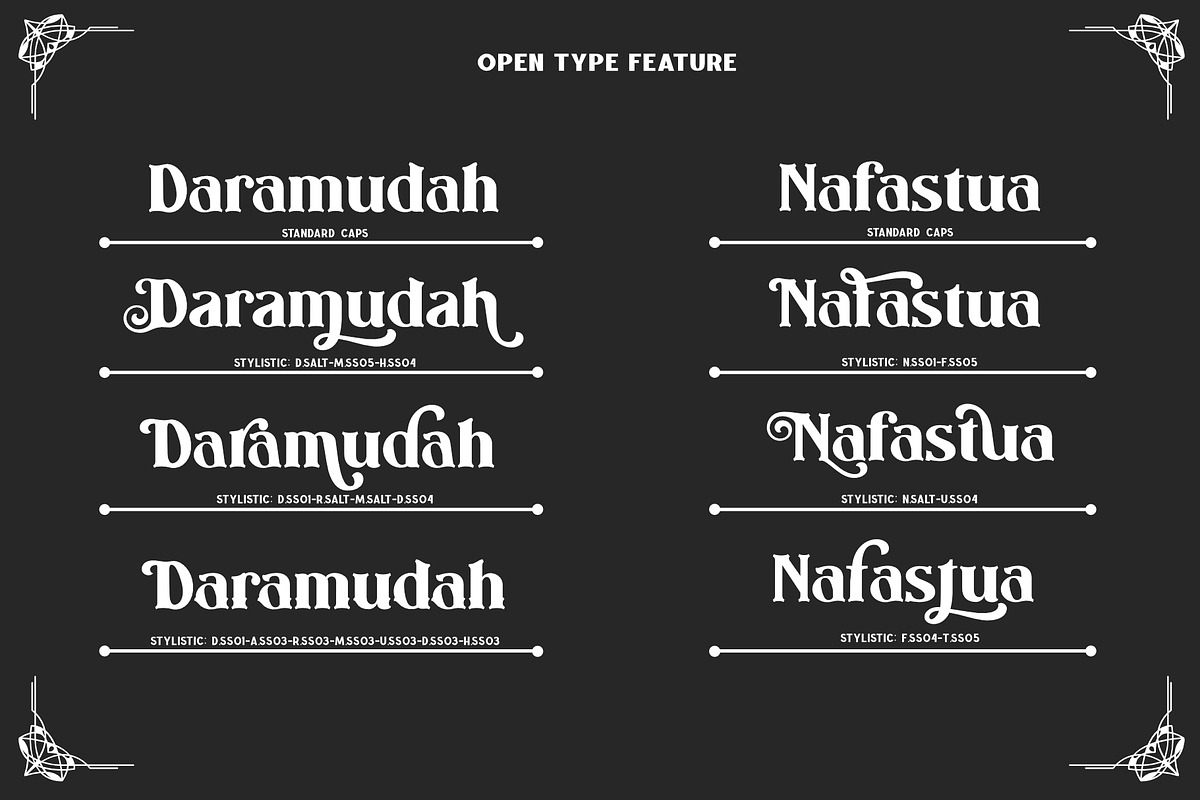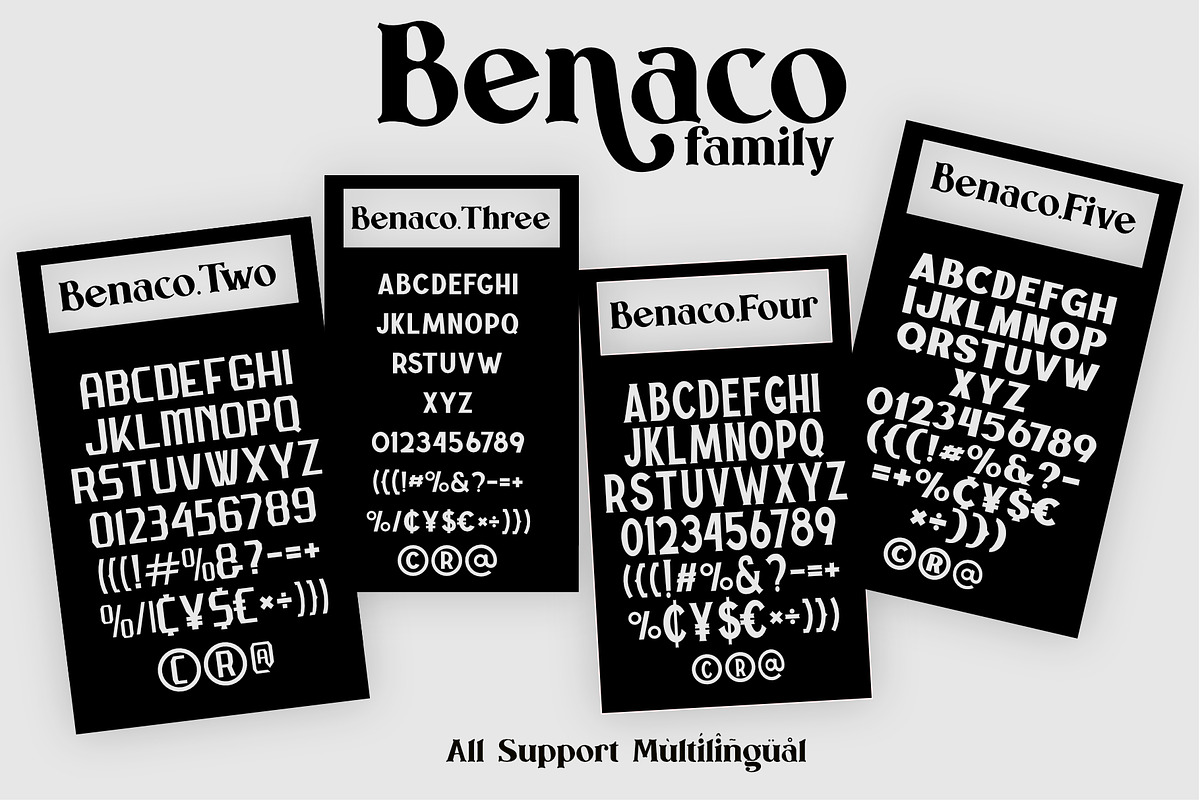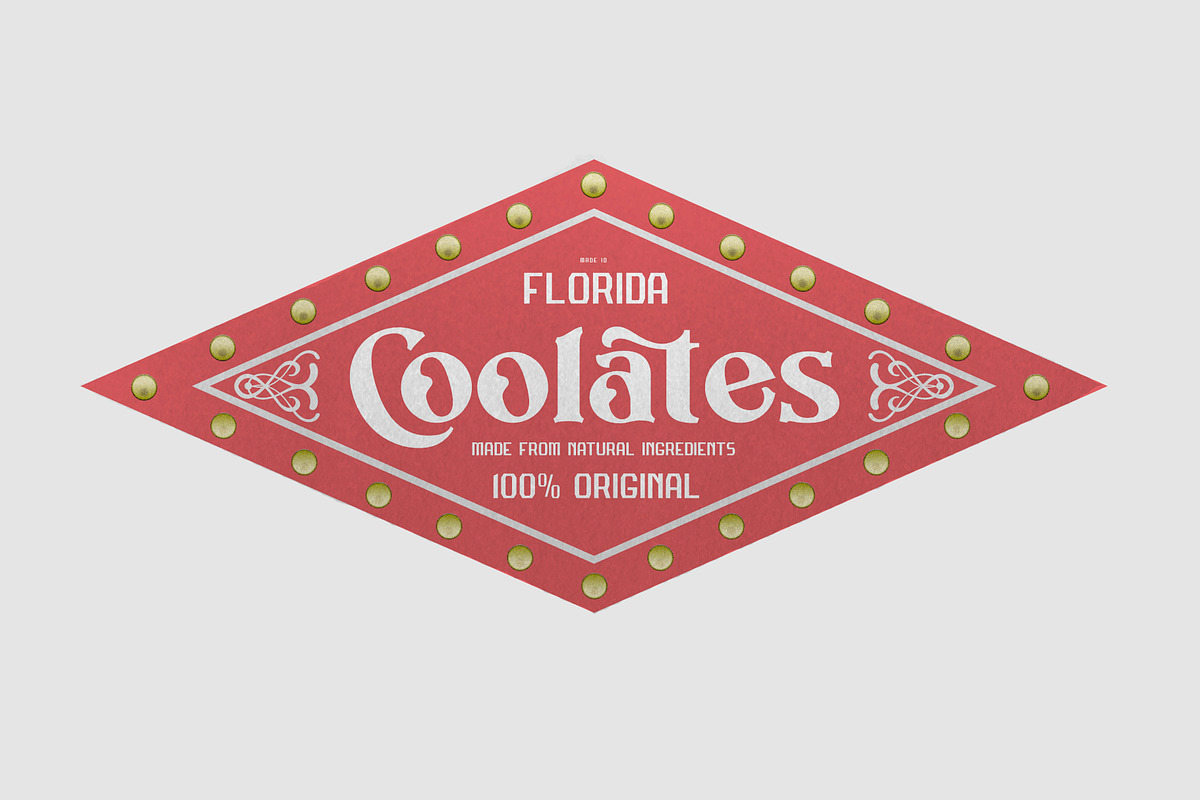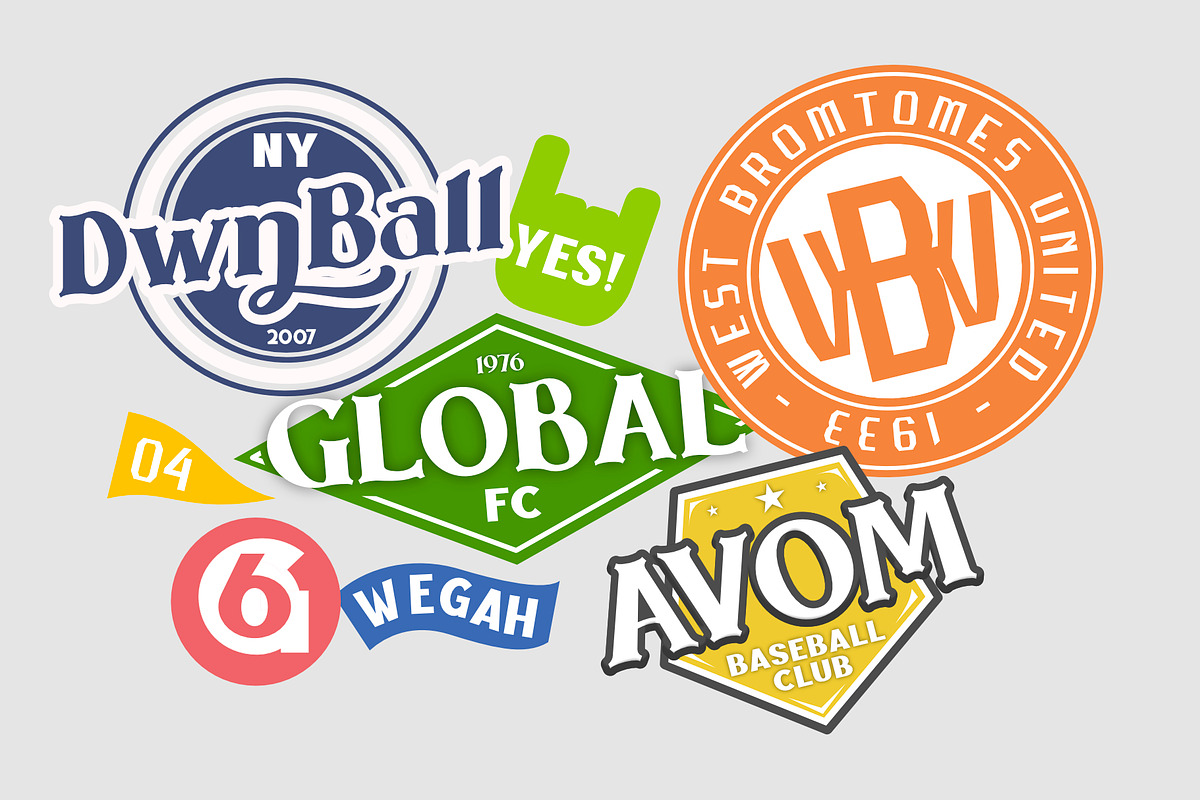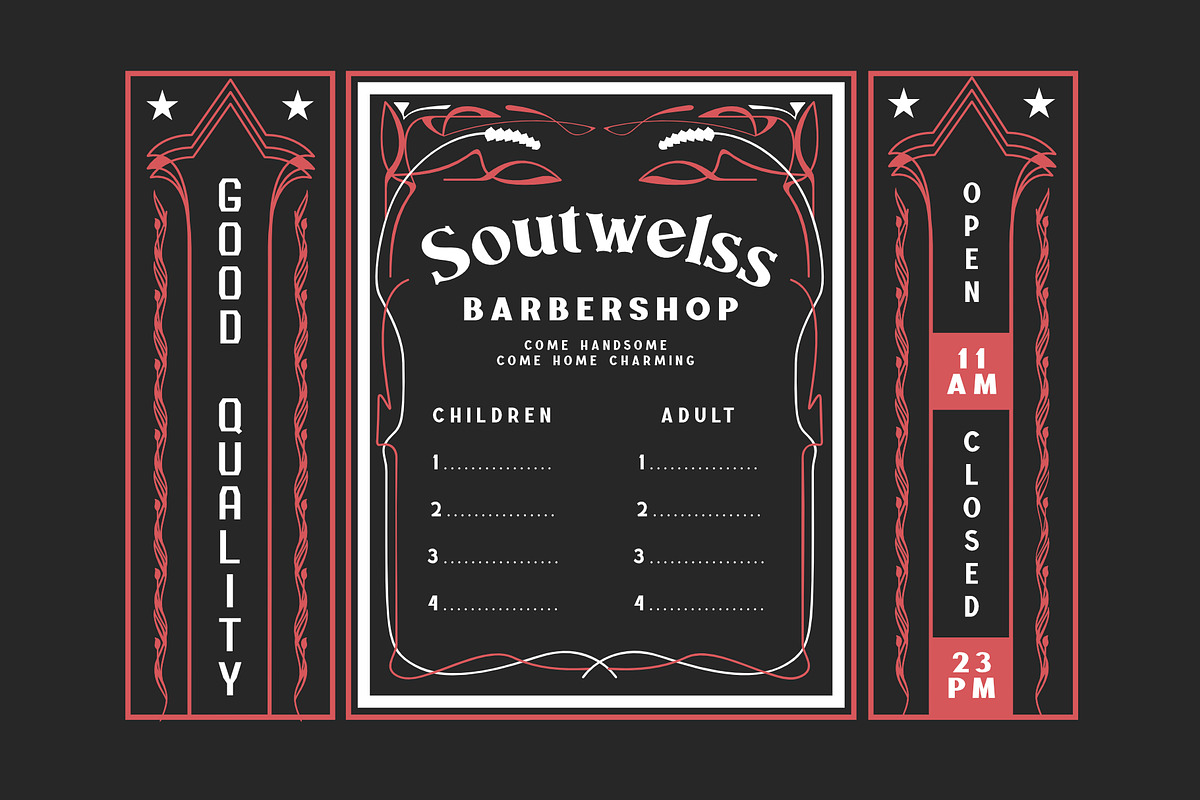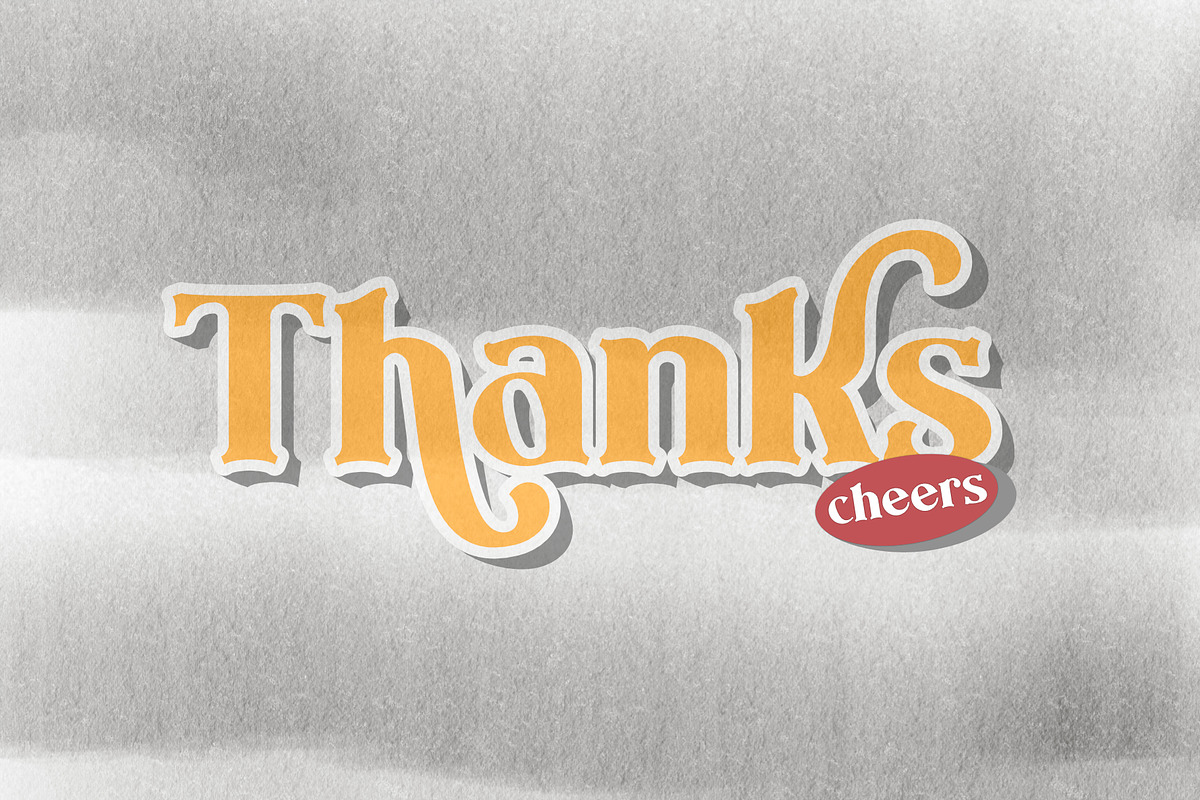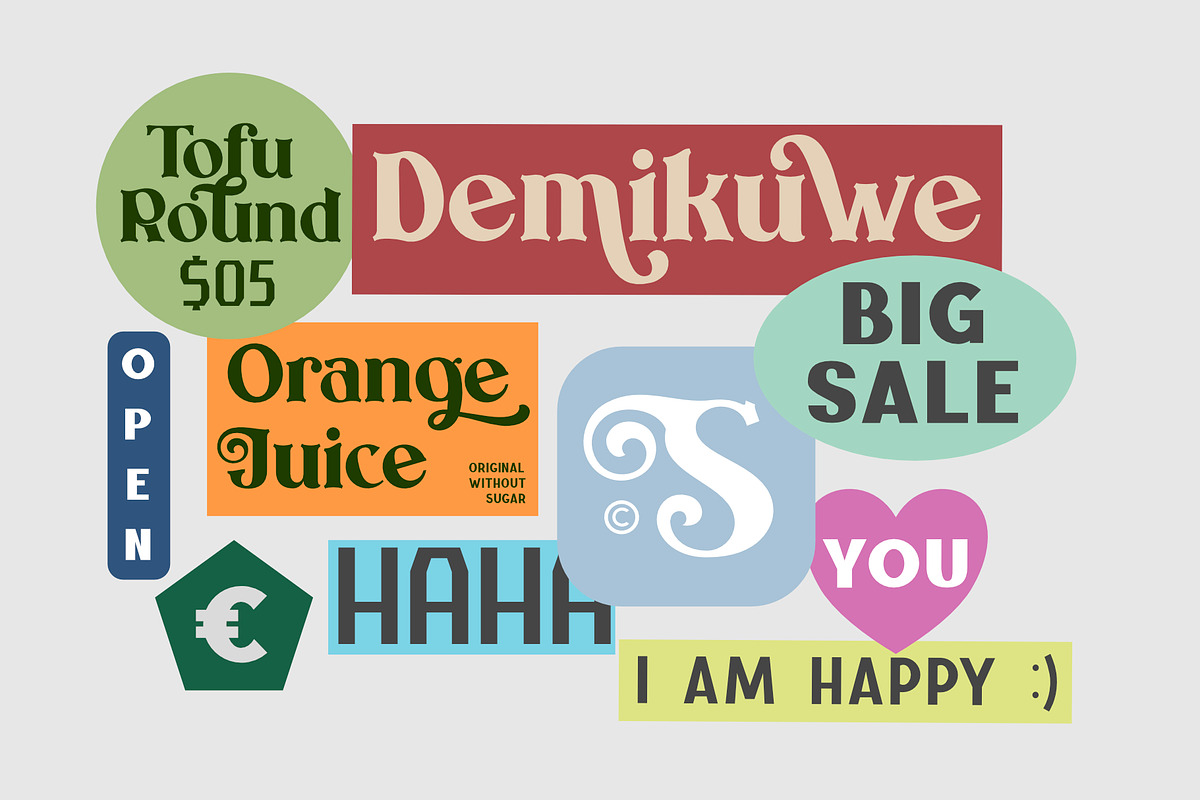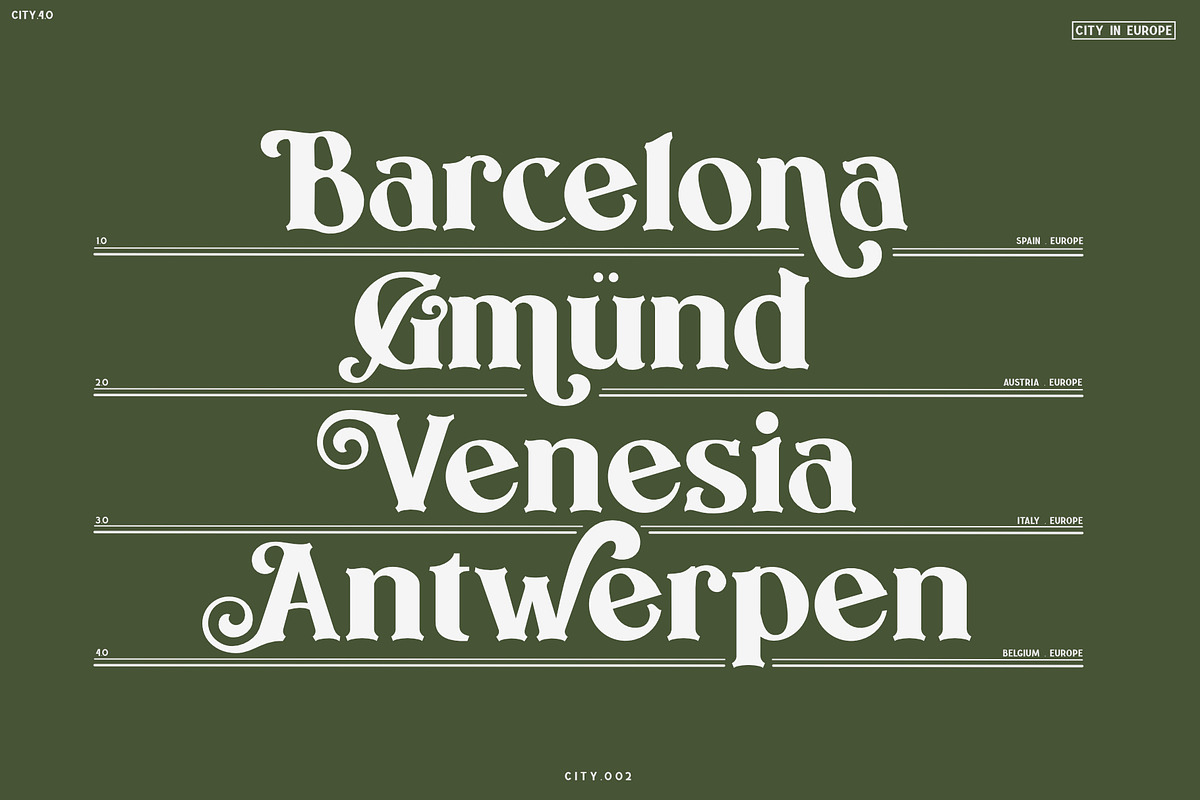
Benaco
Introducing Benaco
Benaco is a font inspired by the Art Nouveau design that is made modern so that it can be applied to the current design style, producing beautiful, unique, elegant, classic fonts together to produce dynamic fonts and supported by 4 supporting fonts, Serif, Sans Serif , Bolt makes it easy to explore your design style, with a variety of choices and alternative font styles. it allows logos, posters, covers, main packaging, t-shirts, stickers and more, so what are you waiting for?
- Uppercase Characters
- Lowercase Characters
- Foreign Languages Support: ÀÁÂÃÄÅÆÇÈÉÊËÌÍÎÏÐÑÒÓÔÕÖØÙÚÛÜÝßàáâãäåæçèéêëìíîïñòóôõöøùúûüýÿ